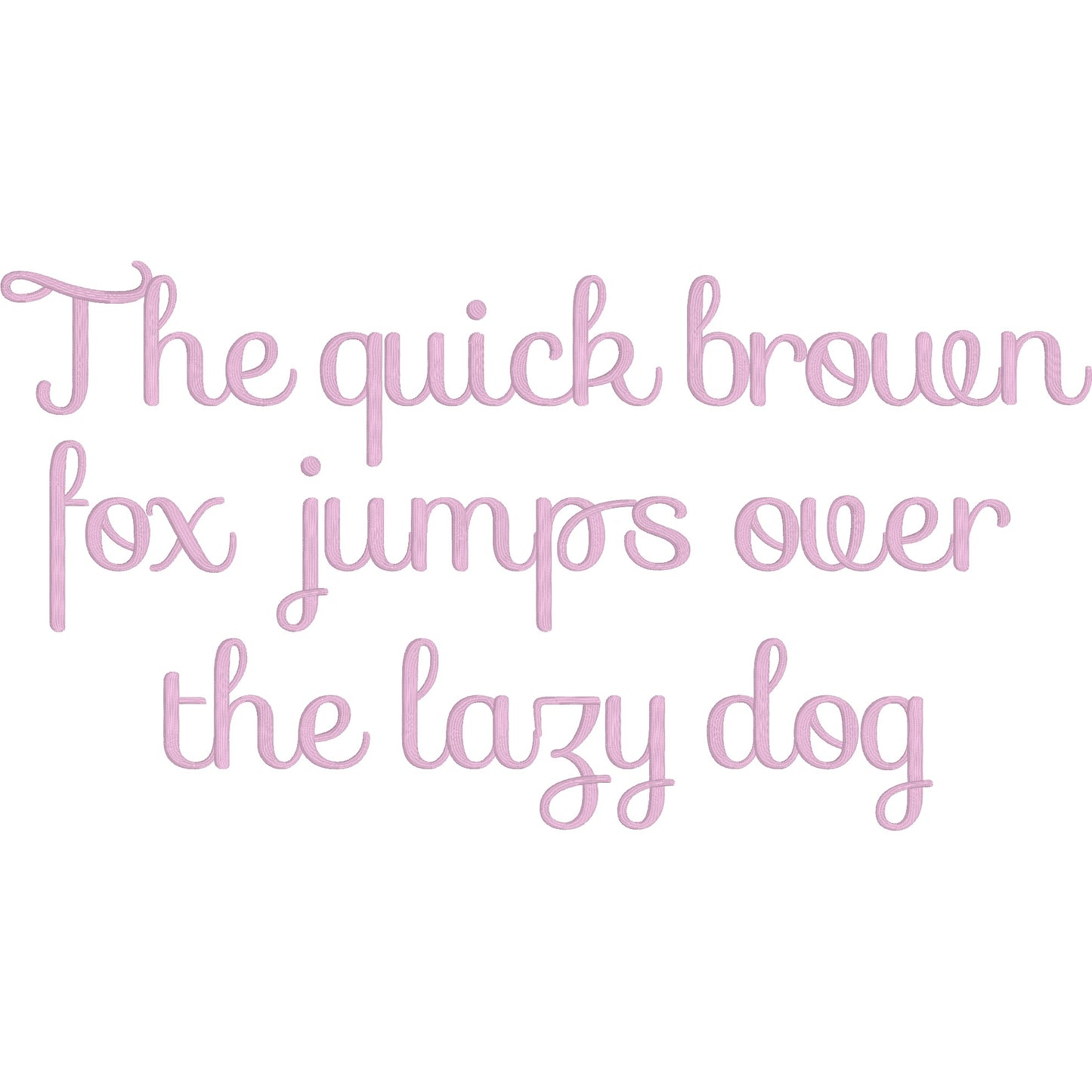
Sofia 3D Puff Foam Elegant Script Embroidery Font
Sofia 3D Puff is a Elegant Script machine embroidery font featuring beautiful satin stitch lettering. Perfect for shirts, towels, hats, baby gifts, monograms, and small business embroidery projects.